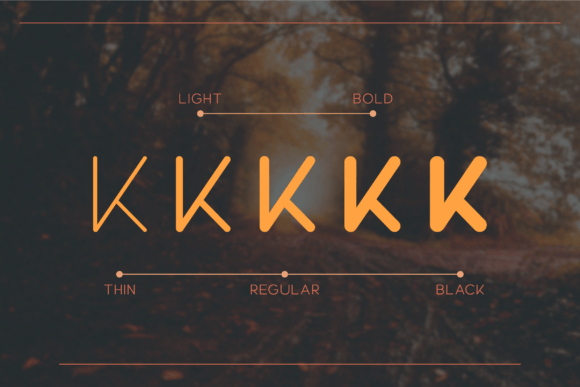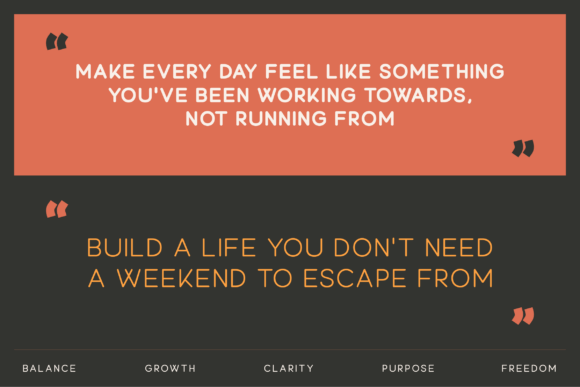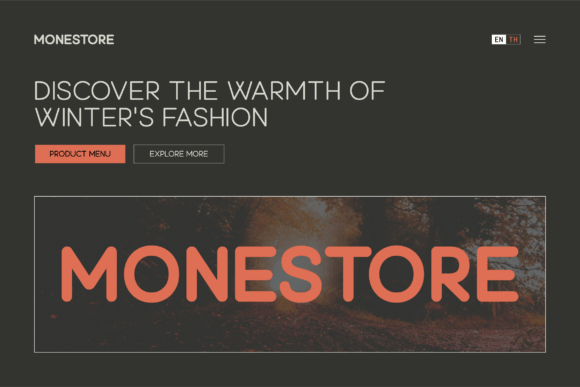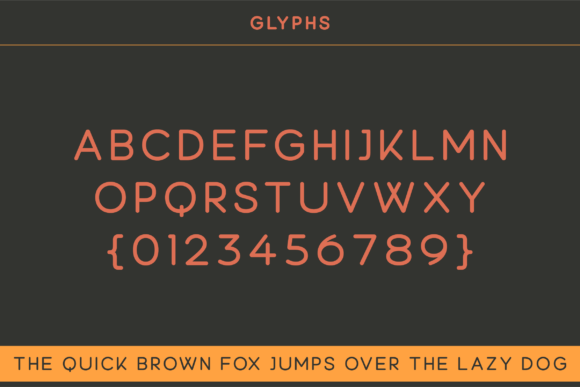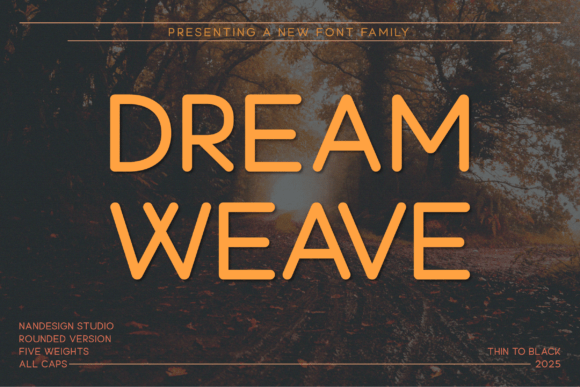
Dream Weave Rounded Font: Elevate Your Designs with Clarity and Warmth
In the world of typography, finding the perfect font that balances clarity, warmth, and personality can be a daunting task. However, with the introduction of Dream Weave Rounded, a modern all-caps sans serif font family, designers and crafters can now bring a polished and confident touch to their creative projects. This versatile font family is designed to provide a clean yet friendly visual identity, making it an ideal choice for a wide range of applications.
What Makes Dream Weave Rounded Unique?
Dream Weave Rounded boasts soft-rounded edges and a sleek, geometric construction, making it both highly legible and aesthetically balanced. The font family consists of five versatile weights: Thin, Light, Regular, Bold, and Black, allowing designers to experiment with different styles and tones. This range of weights ensures that Dream Weave Rounded can be used across various mediums, from subtle, high-end branding to bold, eye-catching headlines.
Key Features of Dream Weave Rounded
- Modern All-Caps Sans Serif Design: Dream Weave Rounded features a contemporary, all-caps sans serif design that exudes confidence and sophistication.
- Soft-Rounded Edges: The font’s soft-rounded edges add a touch of warmth and approachability, making it perfect for brands that want to convey a friendly and approachable tone.
- Sleek Geometric Construction: The font’s geometric construction ensures that it remains highly legible, even at smaller sizes.
- Five Versatile Weights: With five weights to choose from, designers can experiment with different styles and tones to find the perfect fit for their project.
Dream Weave Rounded is an incredibly versatile font family that can be used across various mediums, including:
- Logo Design: Create a bold and confident logo that stands out from the crowd.
- Packaging Design: Add a touch of sophistication and elegance to your packaging designs.
- Social Media Visuals: Elevate your social media presence with eye-catching visuals that showcase your brand’s personality.
- Headlines and Titles: Use Dream Weave Rounded to create bold, attention-grabbing headlines and titles that demand attention.
Why Choose Dream Weave Rounded?
With so many fonts available, why choose Dream Weave Rounded? Here are just a few reasons why designers and crafters are falling in love with this font family:
- Clean and Friendly Visual Identity: Dream Weave Rounded provides a clean yet friendly visual identity that is perfect for brands that want to convey a sense of approachability and sophistication.
- Highly Legible: The font’s sleek geometric construction and soft-rounded edges ensure that it remains highly legible, even at smaller sizes.
- Versatile: With five weights to choose from, Dream Weave Rounded can be used across a wide range of applications and mediums.
In conclusion, Dream Weave Rounded is a modern all-caps sans serif font family that is sure to elevate your designs and bring a polished and confident touch to your creative projects. With its soft-rounded edges, sleek geometric construction, and five versatile weights, this font family is perfect for designers and crafters who want to create a clean yet friendly visual identity. Whether you’re building a logo, packaging design, social media visuals, or high-impact headlines, Dream Weave Rounded is the perfect choice.